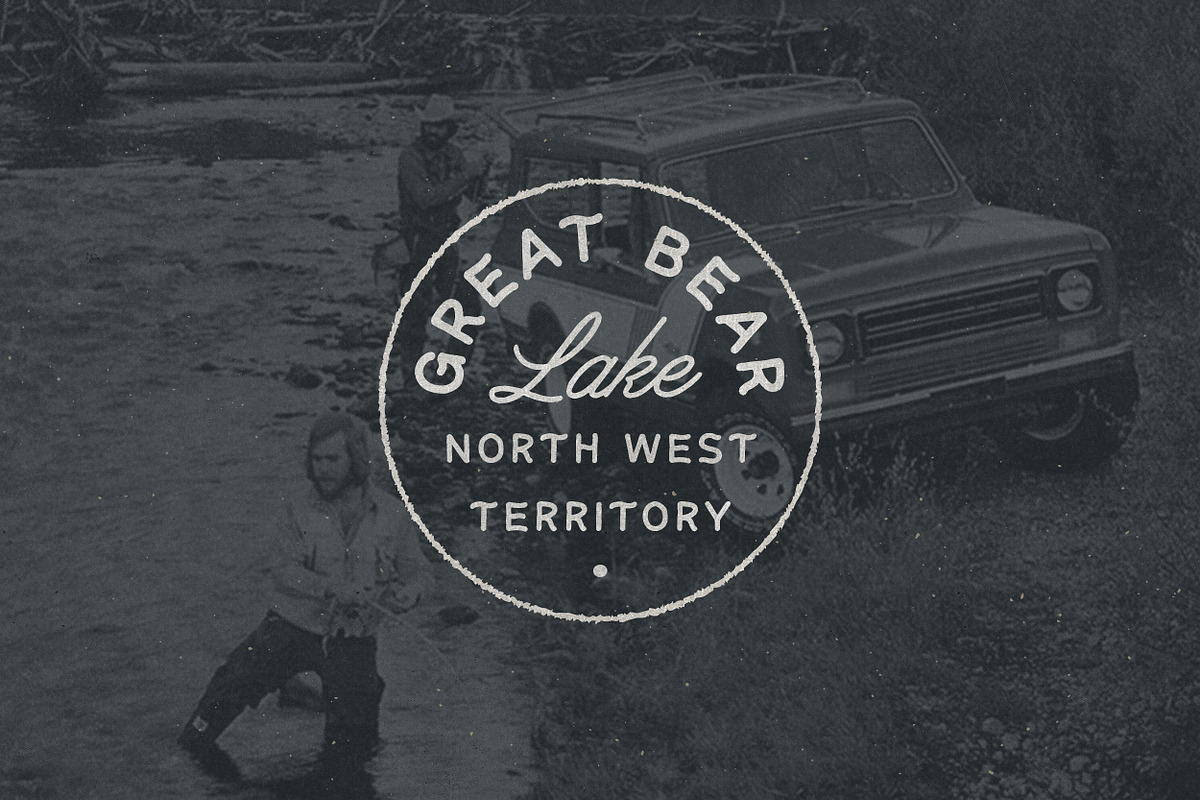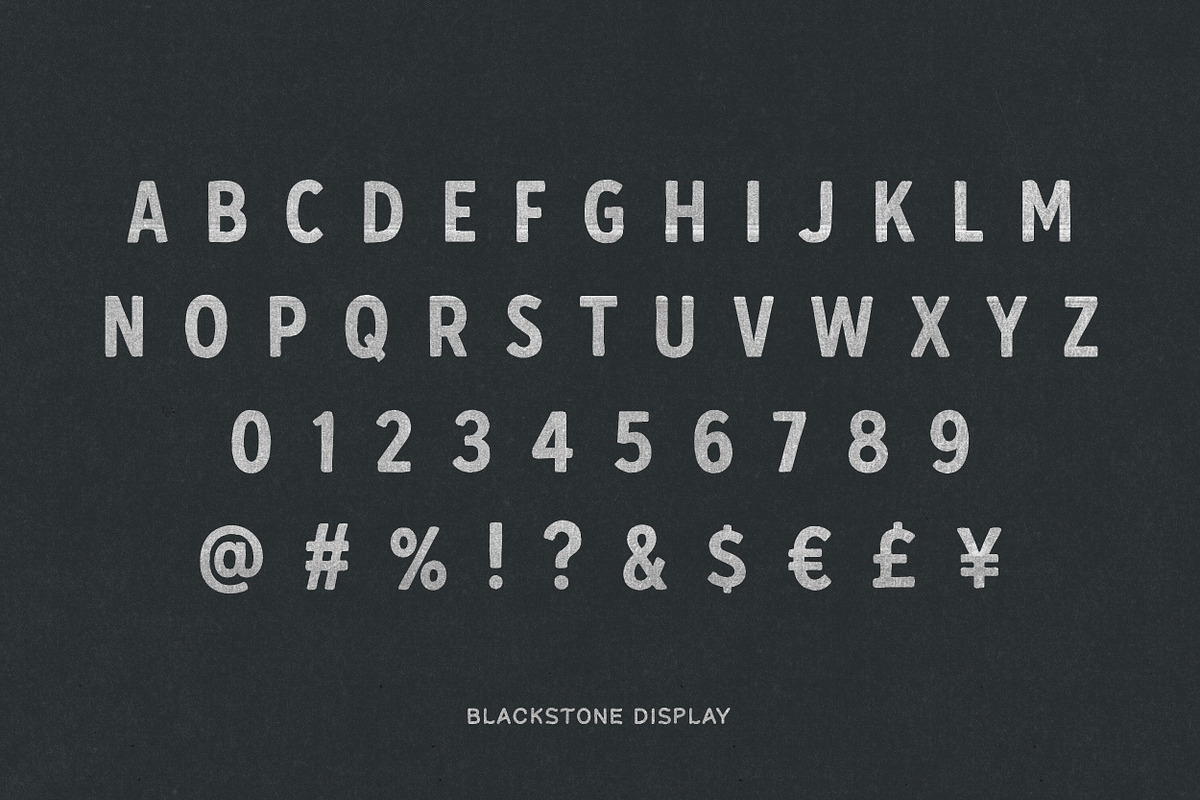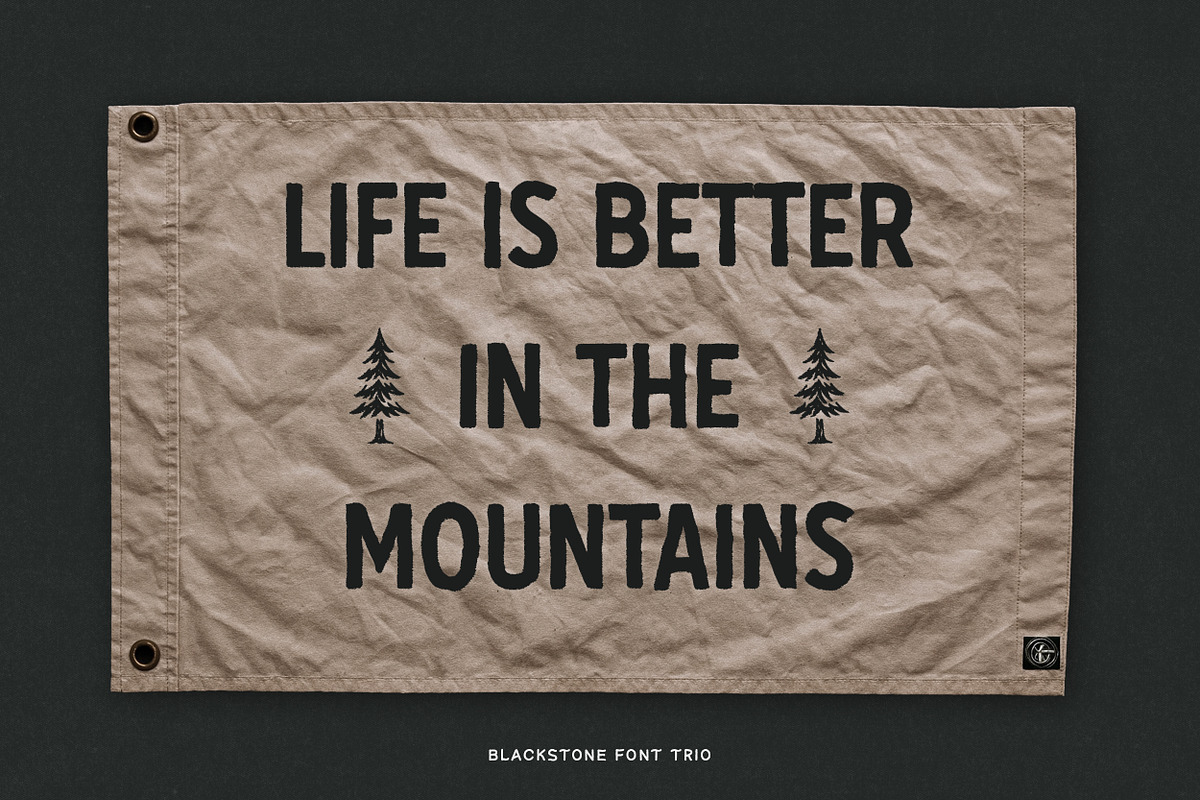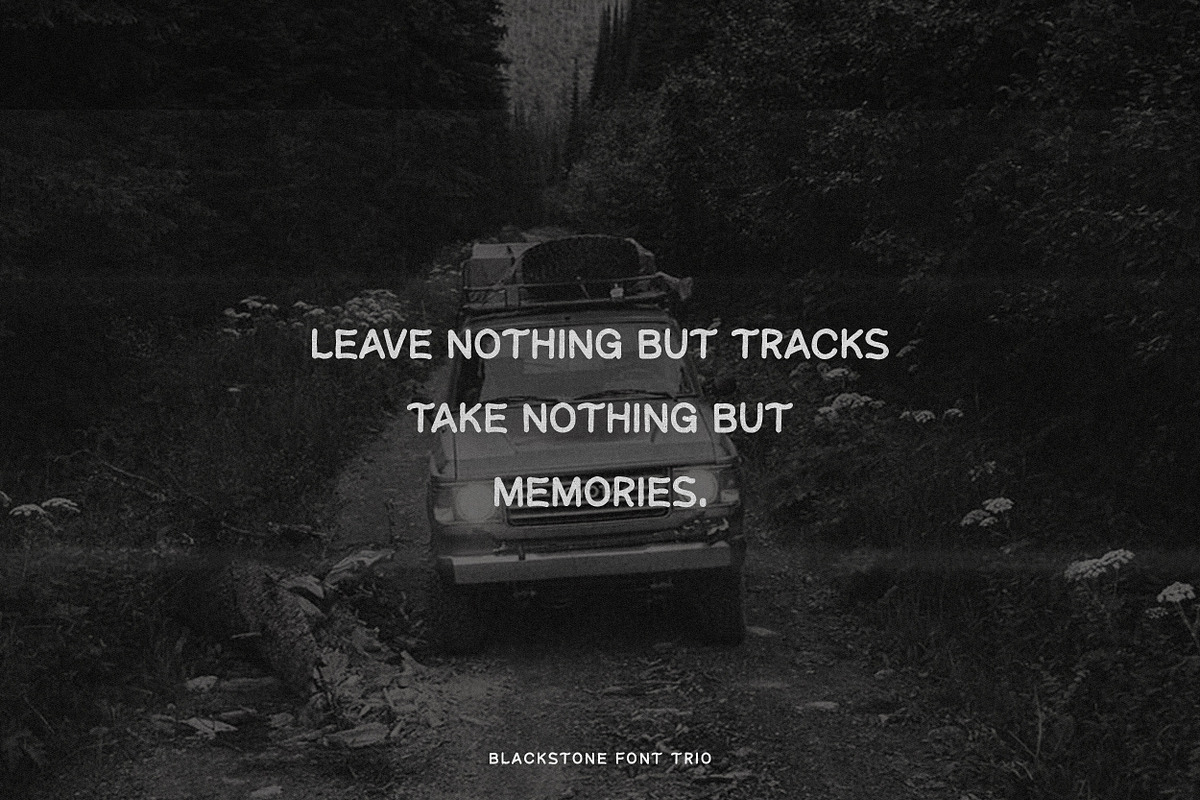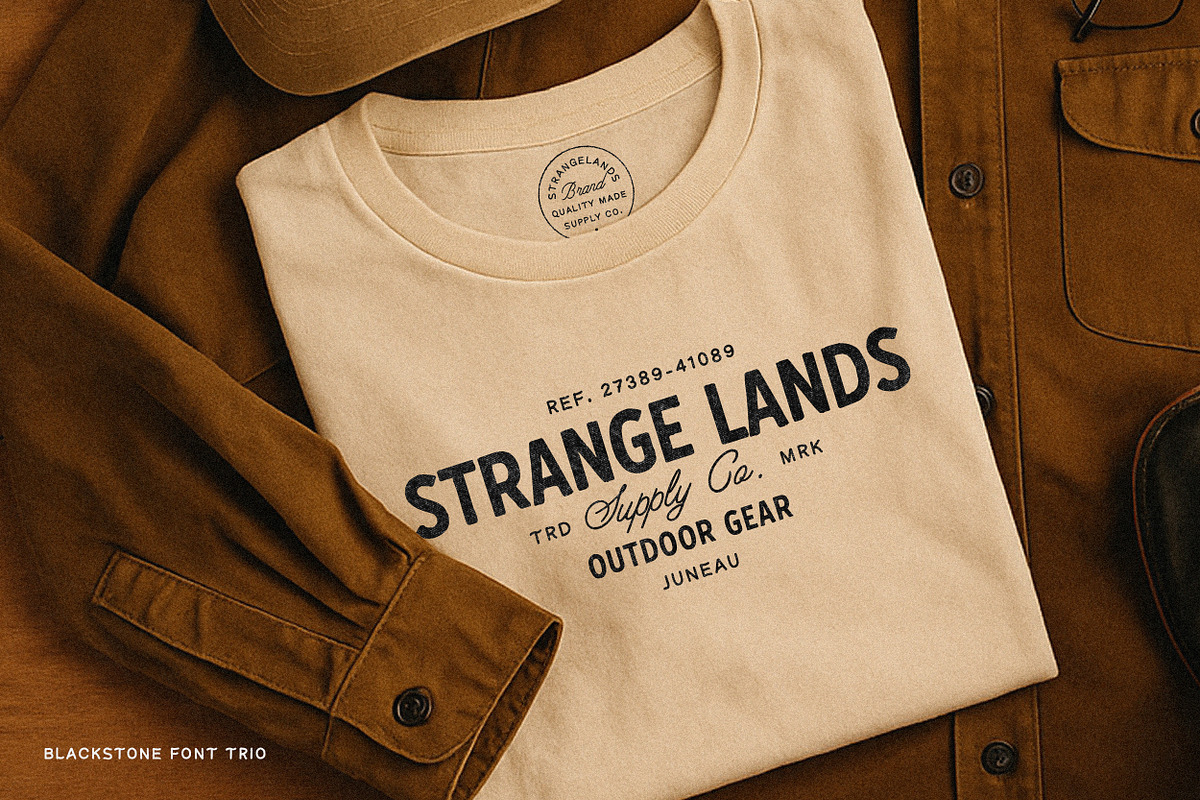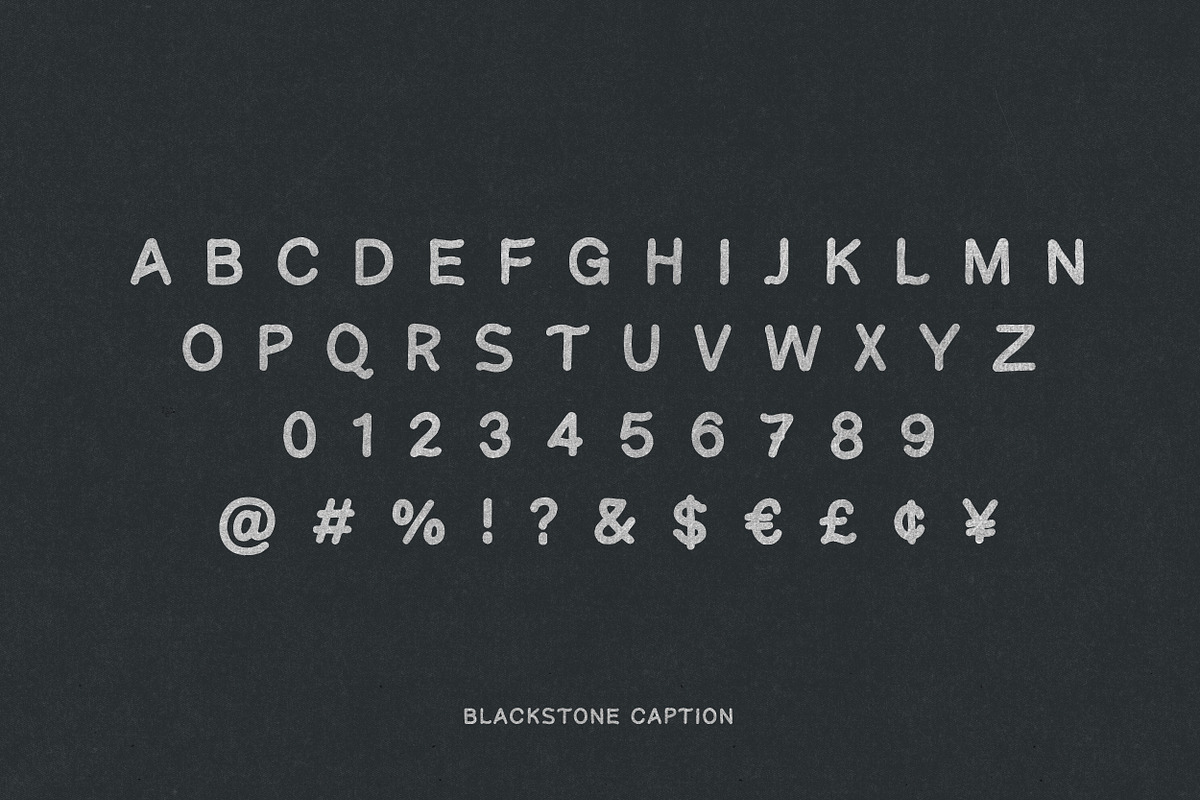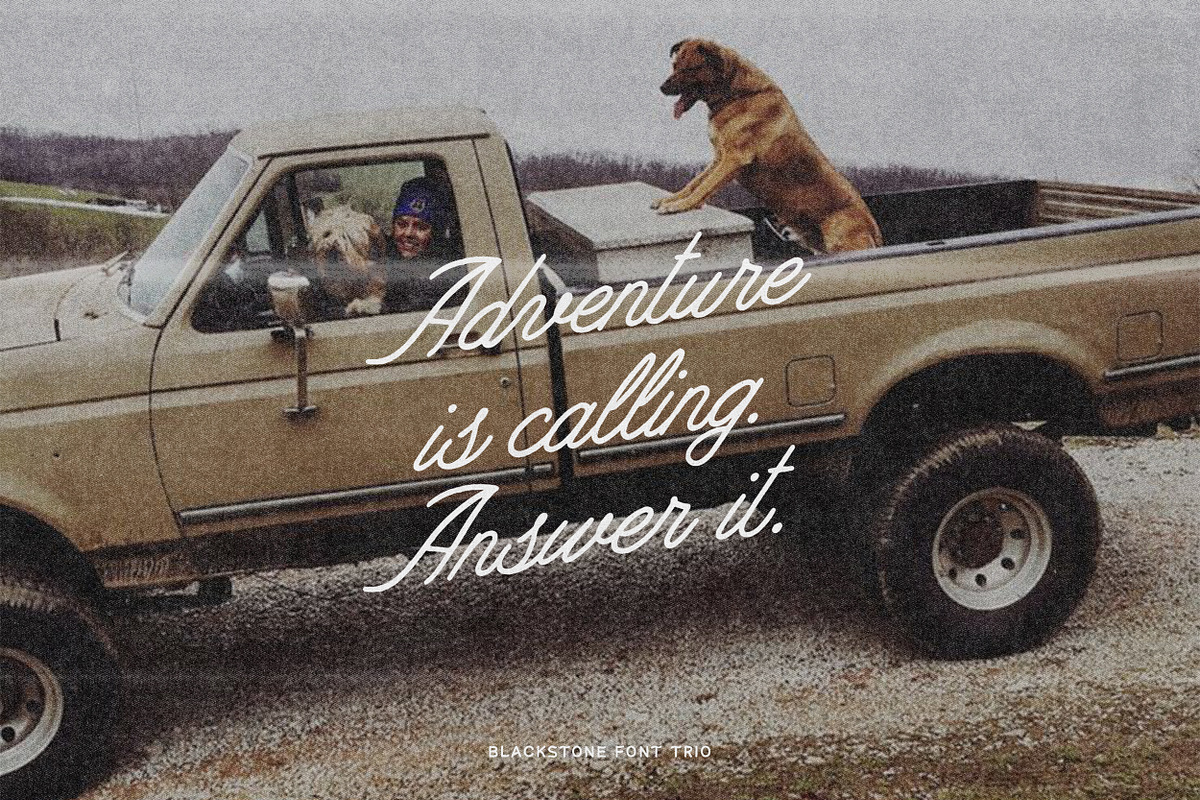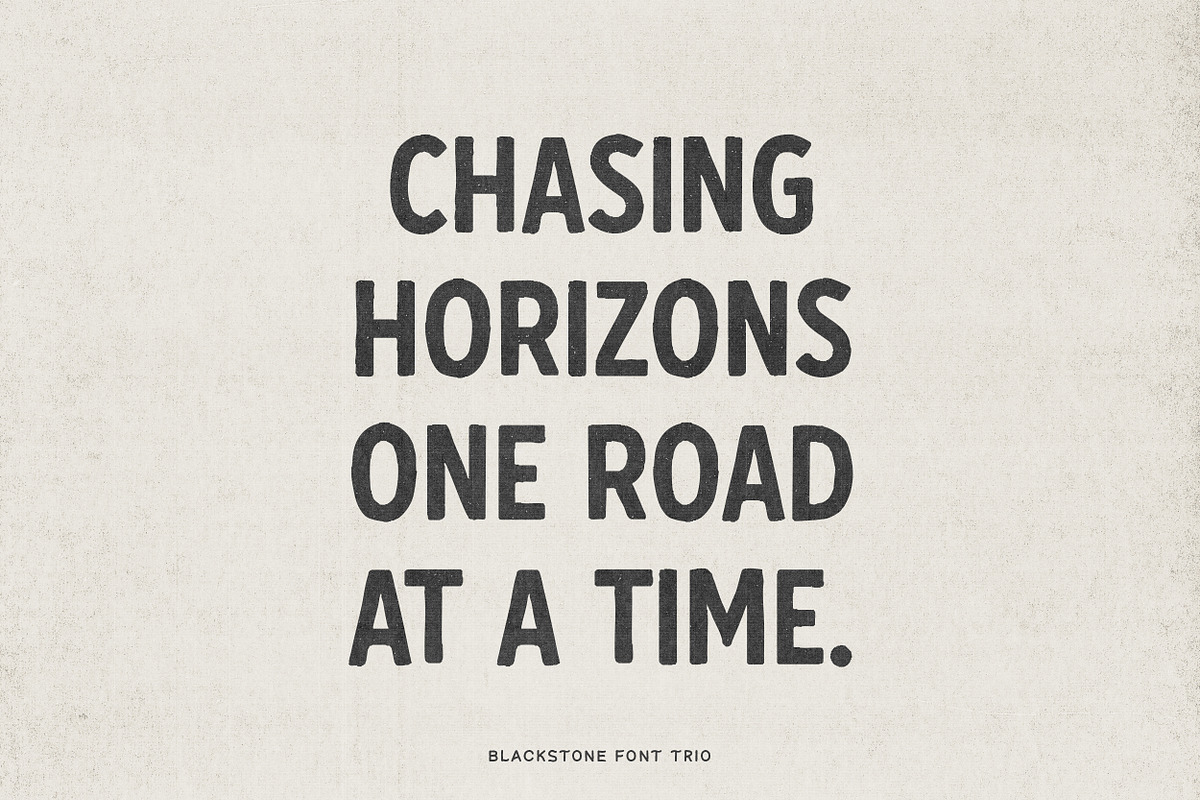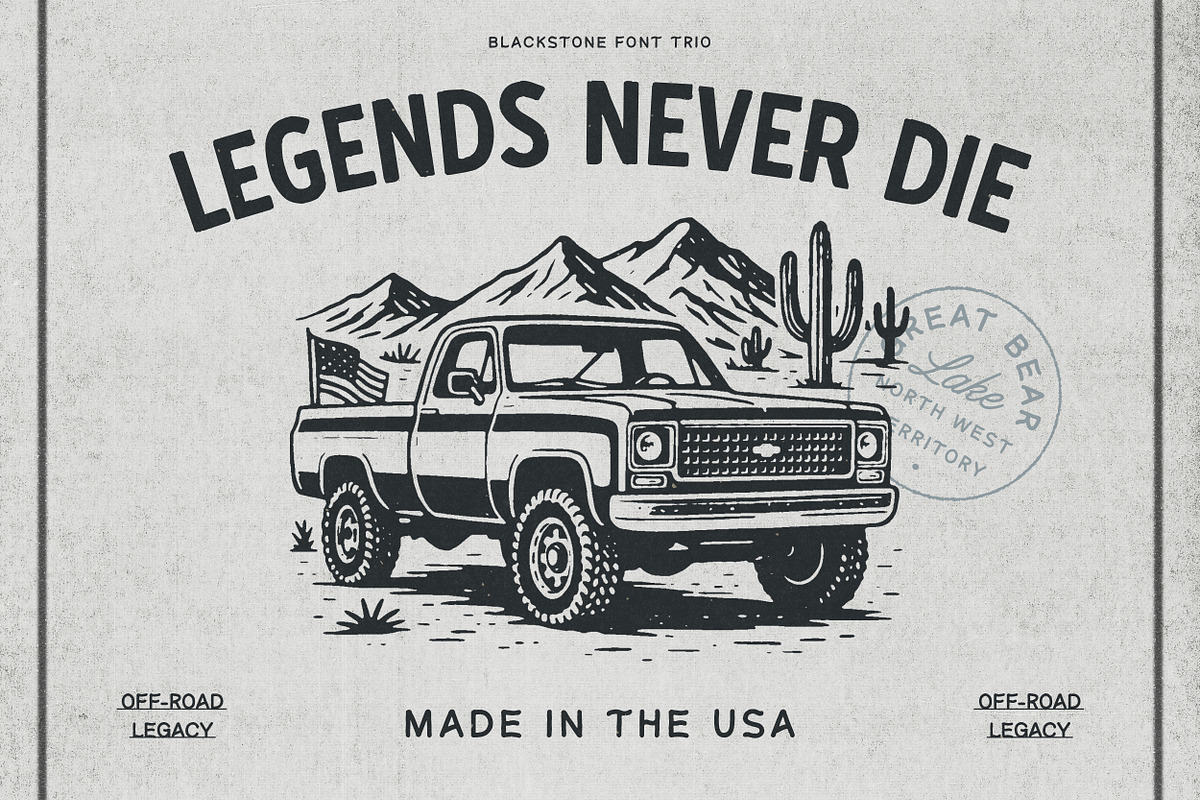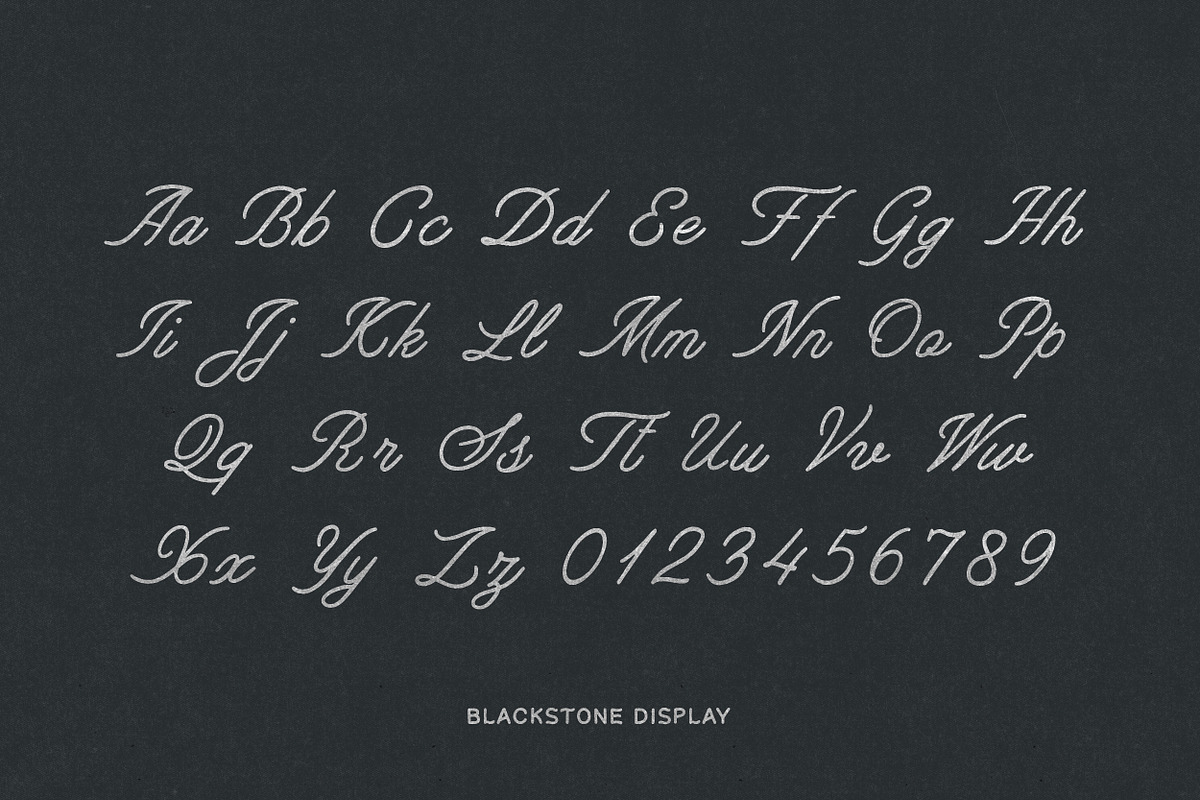
Blackstone – Handmade Font Trio
Introducing Blackstone, a bold handmade font trio crafted for creators who want their work to feel authentic, adventurous, and built to last. Inspired by vintage outdoor design and rugged heritage typography, Blackstone combines three versatile styles that work seamlessly together:
Blackstone Script – a flowing hand-drawn script with character and charm, perfect for signatures, badges, or standout headlines.
Blackstone Display – a strong, handcrafted sans designed for logos, packaging, and apparel graphics that need impact and presence.
Blackstone Caption – a clean, easy-to-read companion font, ideal for smaller text, taglines, or product details.
Together, these three fonts give you endless creative possibilities, whether you’re designing logos, apparel, labels, posters, or outdoor-inspired branding. Each style has been carefully drawn by hand and refined to keep the natural imperfections that make handmade lettering so unique.
With its mix of strength and soul, Blackstone is built to endure.